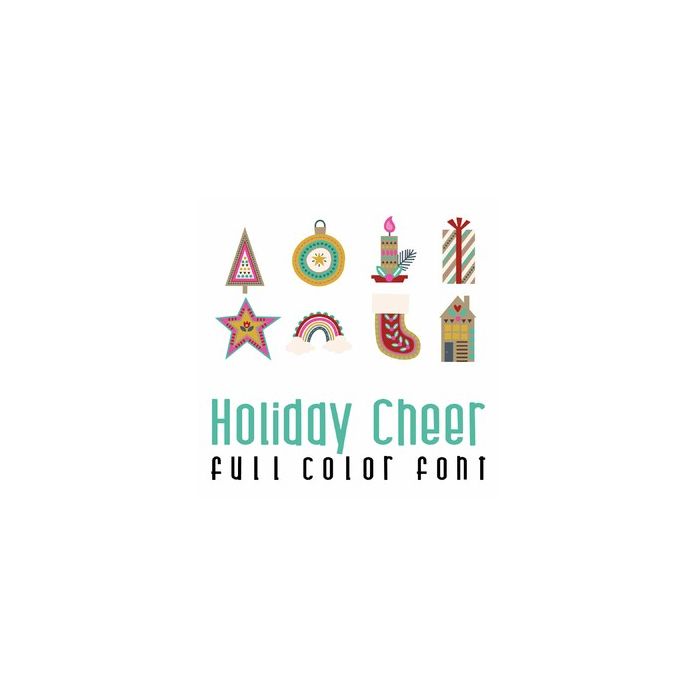
This adorable full color doodlebat font features 26 decorative holiday designs. Perfect for cards, crafts, gifts, decor, scrap book pages, planner stickers and more!